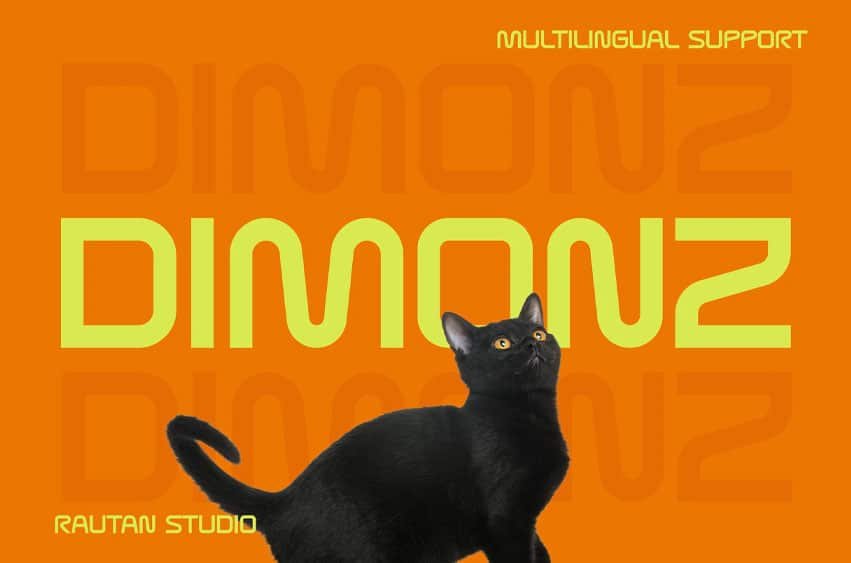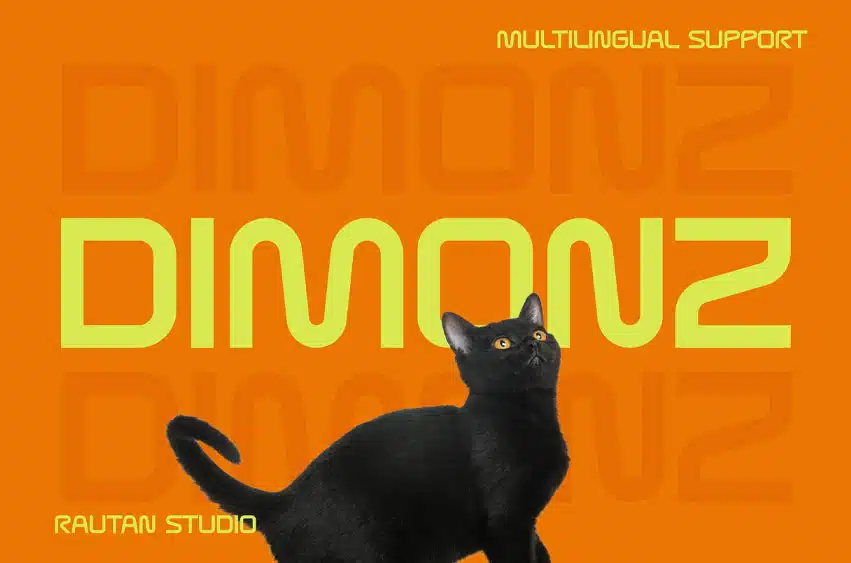
Dimonz Font is a modern futuristic display font designed to give branding and digital visuals a bold, innovative personality. Featuring geometric construction, rounded corners, smooth curves, and low-contrast strokes, it creates a clean sci-fi aesthetic that remains highly readable. Its contemporary forms make it an excellent choice for technology brands, gaming projects, social media campaigns, posters, packaging, and creative visual identities. With Multilingual Support, Dimonz helps designers communicate confidently across international audiences while maintaining a strong and consistent visual presence.
Whether you’re creating a startup identity, esports branding, YouTube thumbnails, mobile app promotions, futuristic posters, or eye-catching social media graphics, Dimonz delivers an energetic and memorable look. Its distinctive futuristic style instantly attracts attention while keeping layouts clean and modern, making every headline feel innovative, confident, and visually engaging.
Key Features :
- Bold Futuristic Style Designed with a bold futuristic aesthetic that instantly gives your headlines a modern, innovative, and eye-catching appearance.
- Rounded Geometric Shapes Built with smooth rounded corners and geometric proportions, creating a clean look that feels both modern and approachable.
- Clean & Modern Look Simple, balanced letterforms keep every design looking fresh, professional, and easy to read across different media.
- High Readability Maintains excellent legibility even in large headlines, making your message clear and impactful.
- Perfect for Branding Create memorable logos, brand identities, and visual systems with a distinctive contemporary character.
- Ideal for Social Media Stand out on Instagram, Facebook, YouTube, and other digital platforms with bold, attention-grabbing typography.
- Poster & Packaging Ready Perfect for posters, product packaging, advertising campaigns, and promotional materials that need maximum visual impact.
- Gaming & Tech Inspired A futuristic style that fits gaming brands, technology products, esports, apps, and digital innovations.
- Multilingual Support Includes multilingual characters, allowing your designs to reach audiences across multiple languages with consistency.
Bring futuristic energy to your next creative project with Dimonz. Whether you’re building a bold brand, designing digital campaigns, or creating standout headlines, this typeface helps your work leave a lasting impression. Add Dimonz to your collection today and give every design a confident, forward-thinking visual identity.